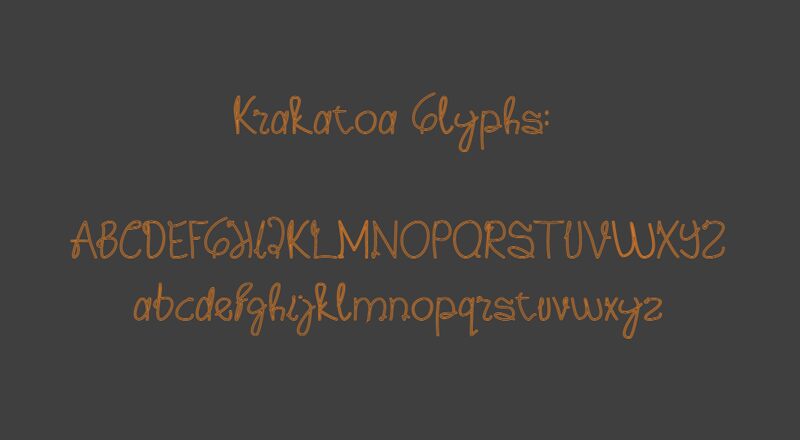
Krakatoa, the mesmerizing creation by Muhammada SI, is an exquisite brush font that adds a touch of elegance and authenticity to any project. With its light weight and unique rope-inspired details, this font is perfect for crafting eye-catching logos and branding materials. Its fluid strokes bring a sense of dynamism to invitations, posters, and social media graphics. Whether you're designing for fashion boutiques or adventure-themed campaigns, Krakatoa's versatility ensures it will leave a lasting impression. Delight your audience with this font that effortlessly melds style and readability into one harmonious package.
Krakatoa